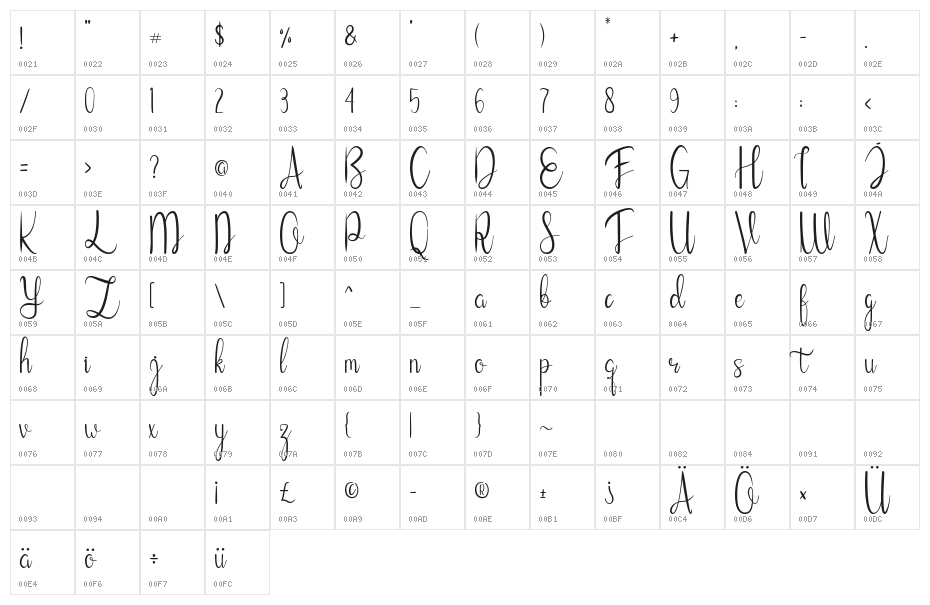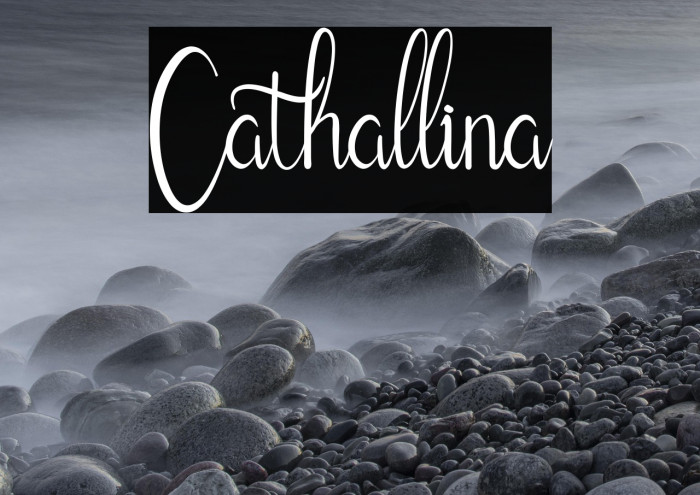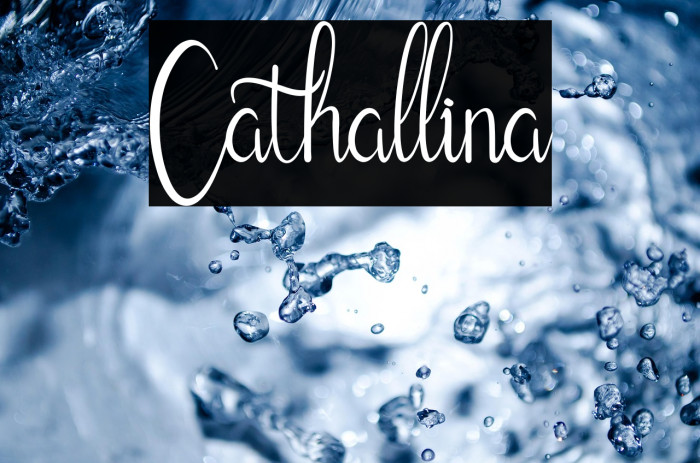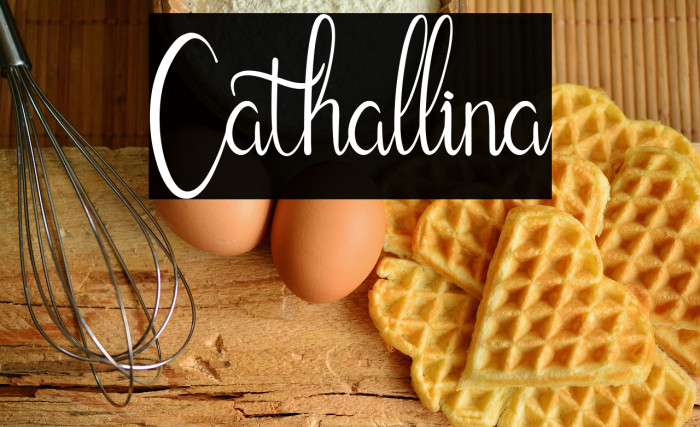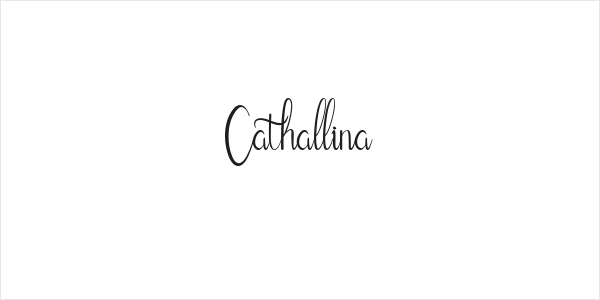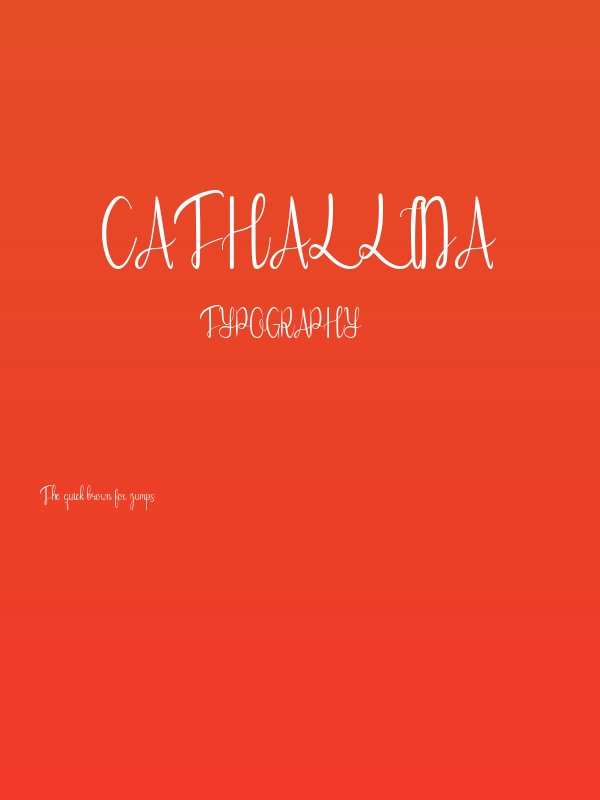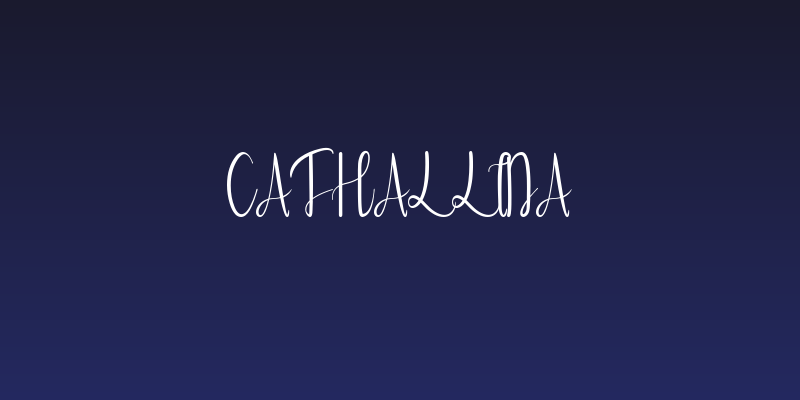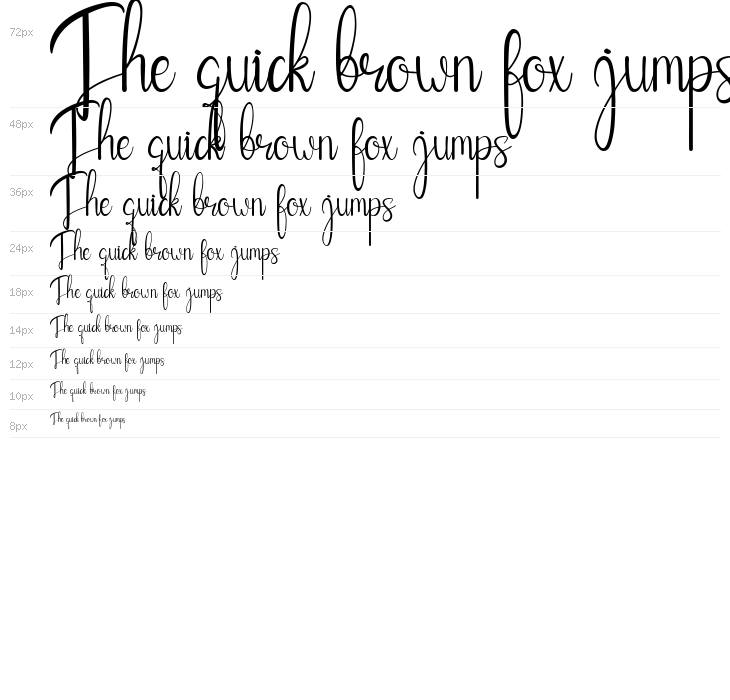
Cathallina Font
Cathallina Description
This font features an elegant, flowing script style with a whimsical touch. The characters are interconnected with smooth, looping strokes, giving it a handwritten feel. The uppercase letters are tall and slender, while the lowercase letters maintain a consistent flow, enhancing readability. The numerals and special characters are designed to match the overall aesthetic, with a playful yet sophisticated appearance. This font exudes a sense of creativity and personal touch, making it suitable for various artistic and decorative applications.